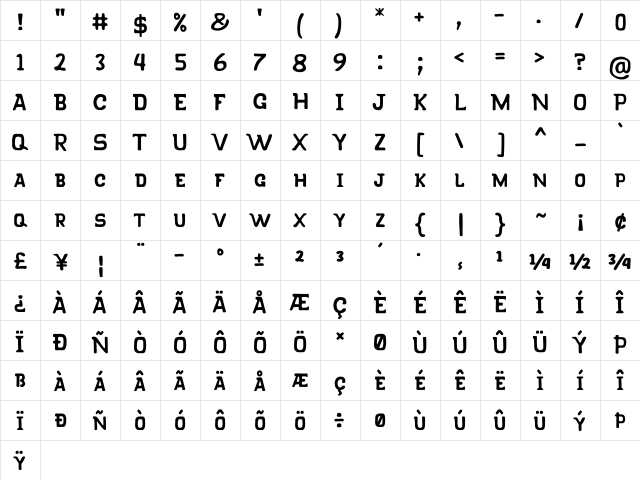
KLAPJO Regular
| Foundry | 7NTypes |
| Designer | Andrian Dehasta, Situjuh Nazara |
Design Context for KLAPJO Typeface
KLAPJO takes a measured approach to typography — its balanced proportions and neutral character make it a reliable workhorse for both digital and print work.